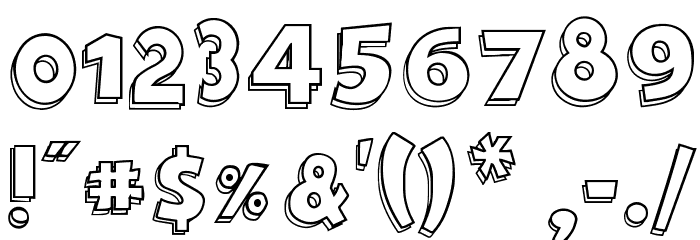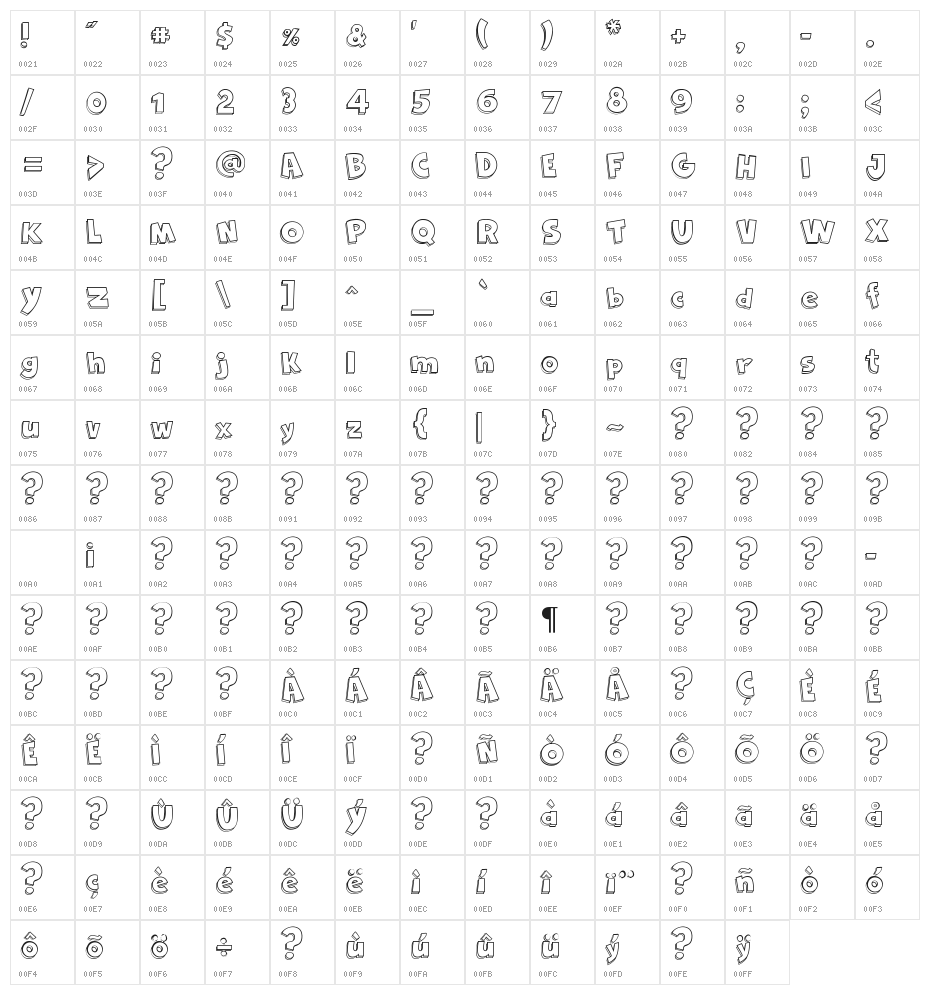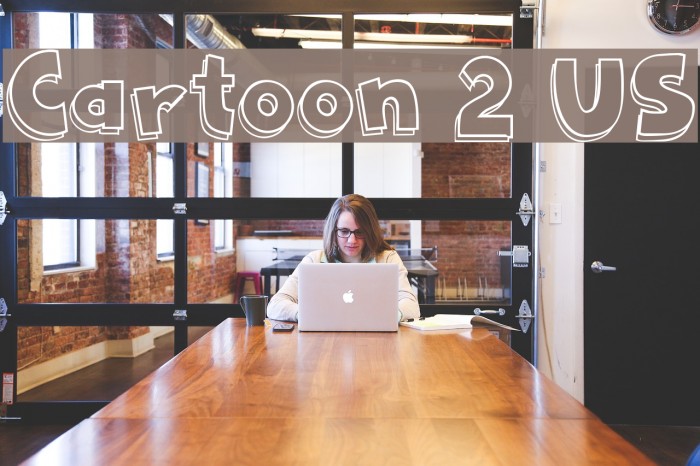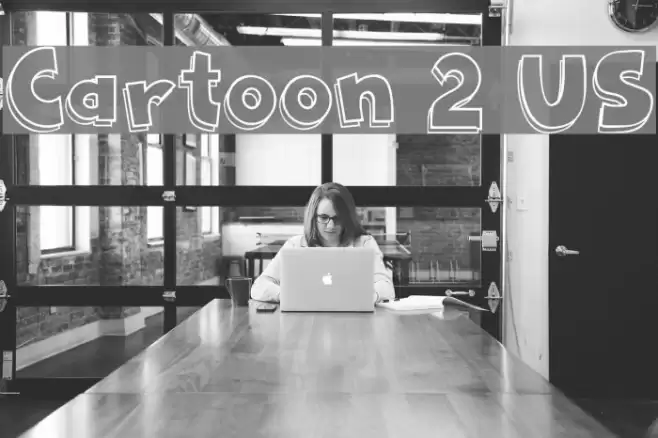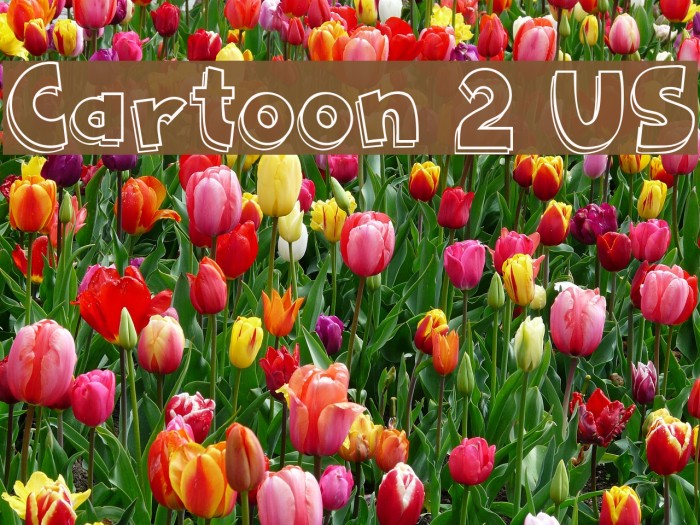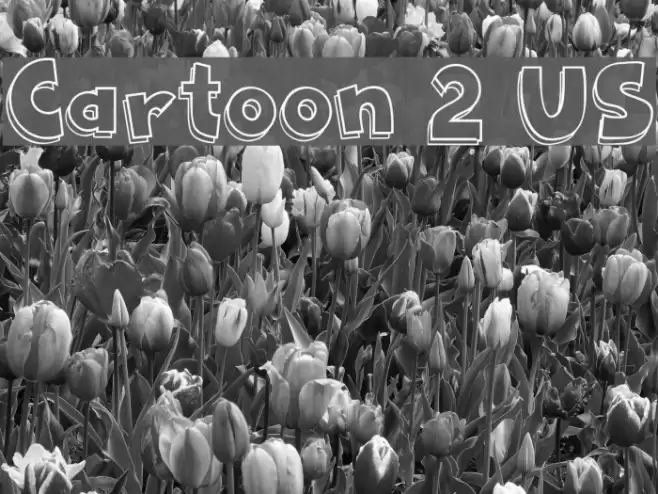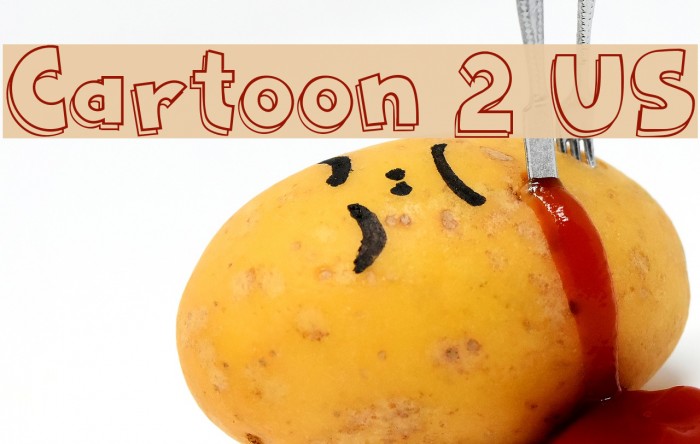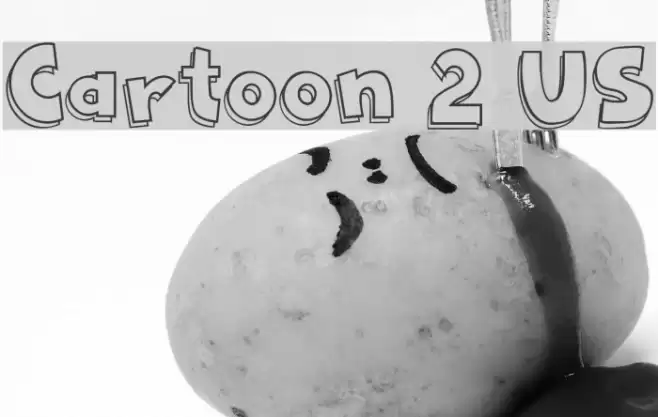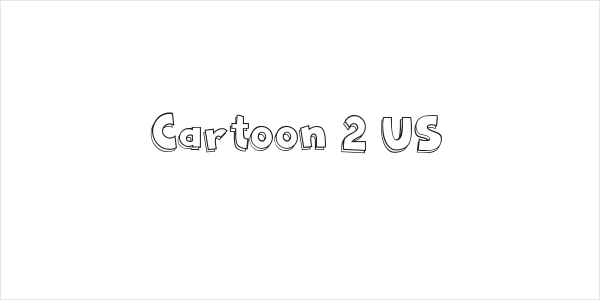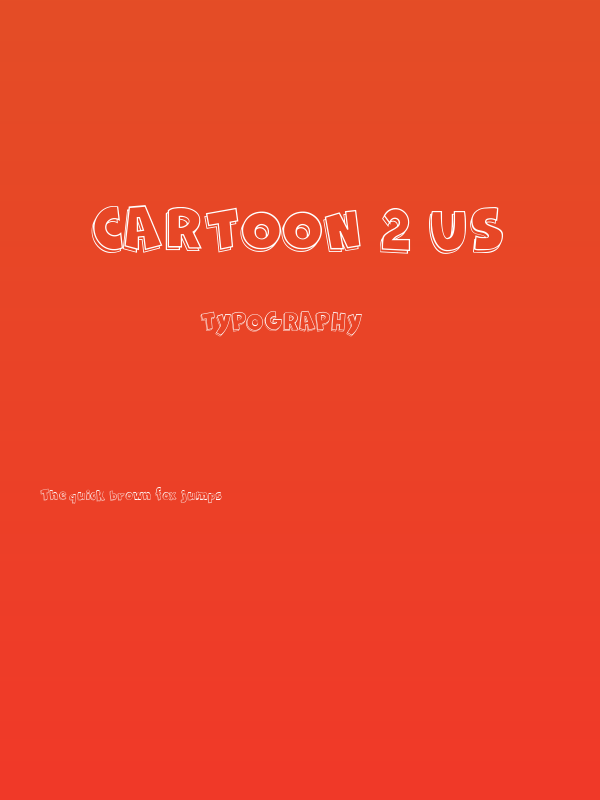
Cartoon 2 US Font
Cartoon 2 US Description
This playful and bold font features a cartoonish style with thick, exaggerated outlines that give it a three-dimensional appearance. The characters are rounded and slightly irregular, adding a whimsical and fun touch. The uppercase and lowercase letters maintain a consistent style, with the uppercase being slightly more angular. Numbers and special characters follow the same playful design, making the font versatile for various creative projects. Its unique style is eye-catching and perfect for designs that require a lively and energetic feel.
| Overall Style | Playful, Cartoonish |
| Proposed Projects | Ideal for children's books, comic strips, playful branding, and eye-catching posters. |